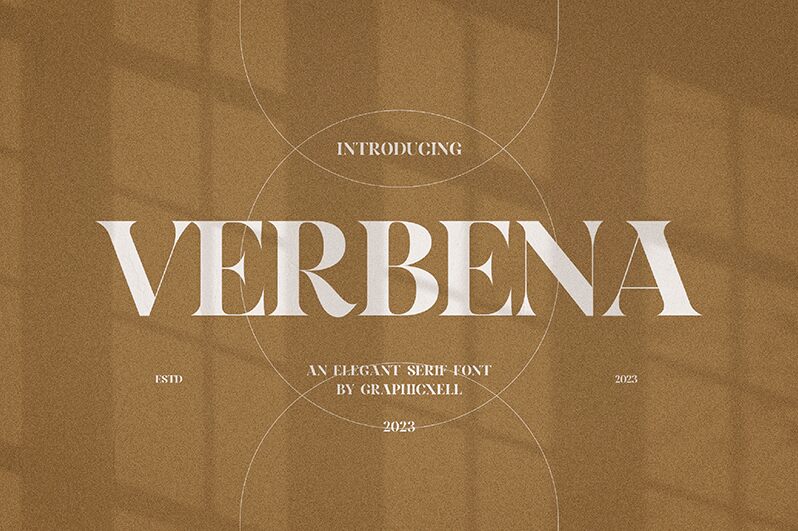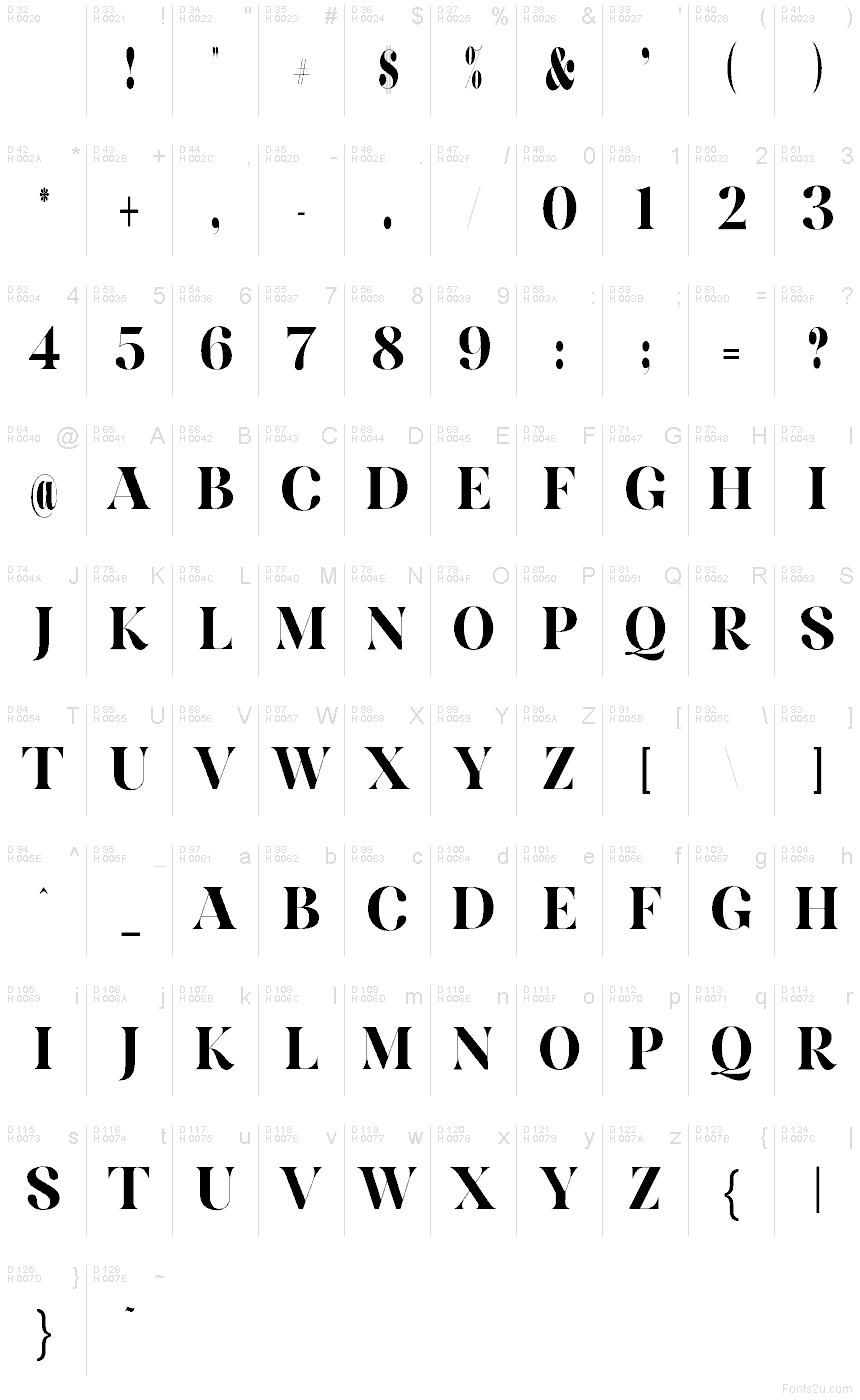
Verbena
Verbena font by Graphicxell is a free serif typeface. Its signature look comes from sculpted cuts that slice through the letters, letting bright slivers of white break up bold, inky strokes. The result feels luxe and editorial—sharp blade-like serifs, confident verticals, and a dramatic rhythm that catches the eye without getting fussy.
Using Verbena, headlines snap into focus for fashion branding, magazine covers, boutique logos, beauty packaging, wine labels, and statement posters. The spacing sits steady, so words stack neatly while those carved openings add sparkle at larger sizes. This free font pairs beautifully with a quiet geometric sans for body copy; keep Verbena big and generous to showcase its sculpted details.